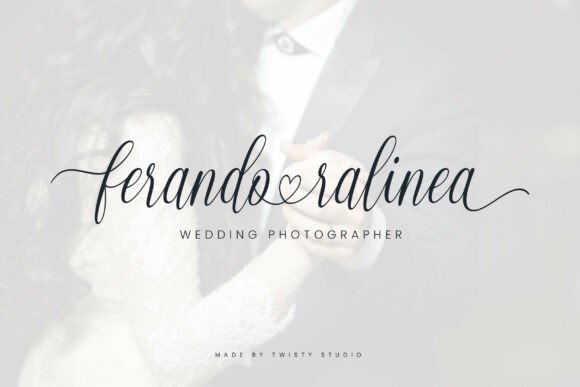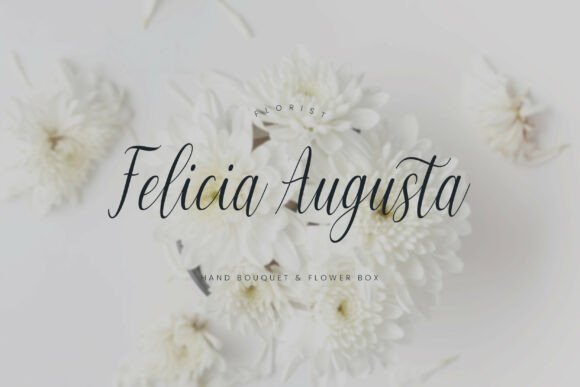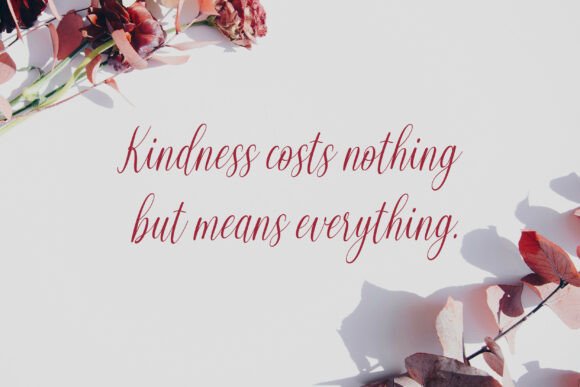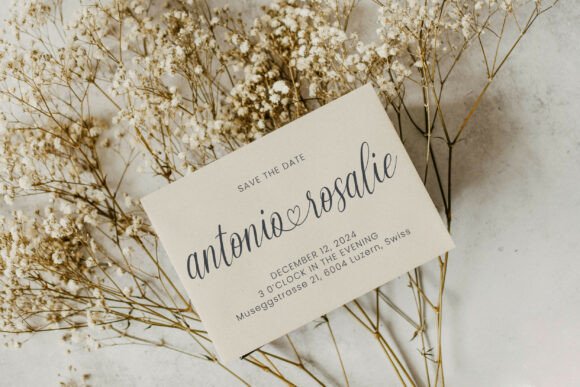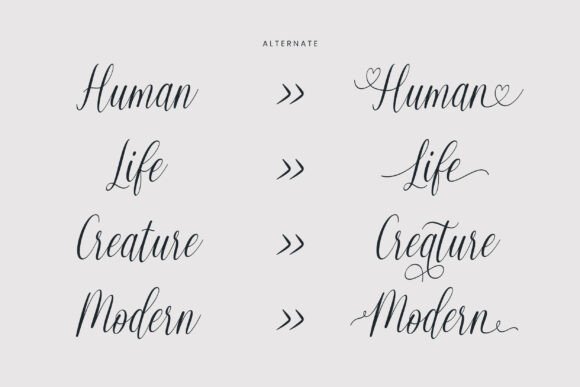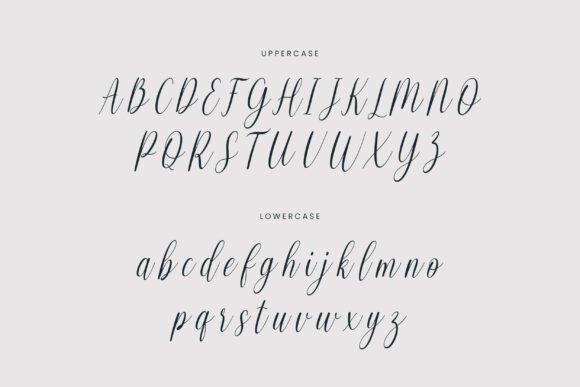
Ballerina Elegance: Elevate Your Design with Balerina Font
As you sit at your desk, surrounded by scraps of paper, ink, and inspiration, you know exactly what you’re looking for: the perfect font to capture the essence of your next project. Maybe it’s a wedding invitation, a love letter, or a special event stationery – whatever it is, you want it to be nothing short of magical. And that’s where Balerina Font comes in.
This beautiful wedding script font is designed to bring romance and elegance to your projects, with flowing strokes and delicate curves that will leave your audience in awe. Whether you’re a seasoned designer or just starting out, Balerina Font is a valuable addition to your toolkit, offering a timeless and sophisticated touch that’s sure to elevate your designs to the next level.
- Unique Characteristics: Balerina Font features elegant, flowing lines and subtle flourishes, making it ideal for creative and luxury branding.
Ballerina Font Review
I’ve had the chance to work with the Ballerina font, and I must say it’s a lovely addition to any design project. Here are my thoughts on what works well and what doesn’t.
The Ballerina font has a beautiful, elegant script feel to it, making it perfect for weddings, invitations, and other special occasions.
The font’s flowing lines and subtle flourishes add a touch of sophistication and romance to any text.
The Ballerina font is highly legible, even at smaller font sizes, making it a great choice for body text or headlines.
The Ballerina font is a script font, which means it may not be suitable for projects that require a more formal or sans-serif font.
The font may not be as versatile as some other fonts, and may not work as well in bold or italic weights.
Overall, I think the Ballerina font is a beautiful and elegant addition to any design project. While it may have some limitations, its unique script feel and high legibility make it a great choice for special occasions and romantic designs.
Tips for Getting the Most Out of the Ballerina Font
Use the Ballerina font for elegant and sophisticated designs. It pairs well with cursive and script fonts for a romantic look.
The Ballerina font is ideal for:
Wedding websites and blogs
Baby shower invitations and decorations
Other special occasion designs